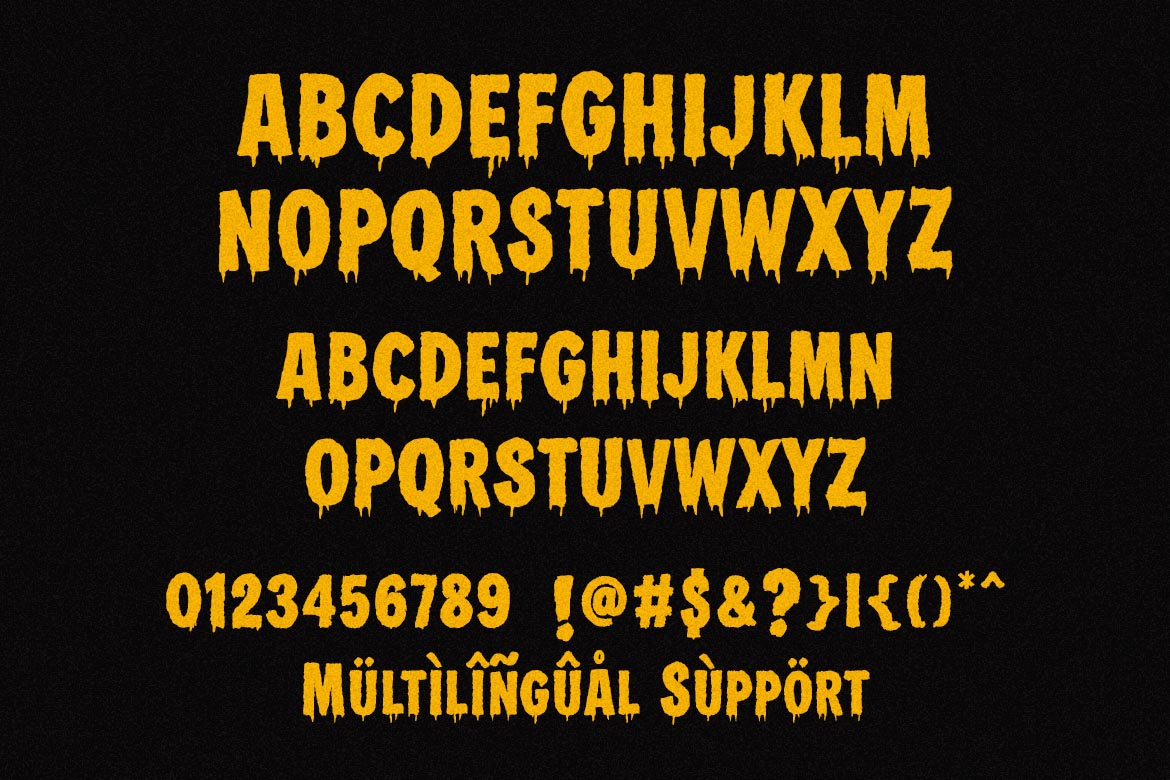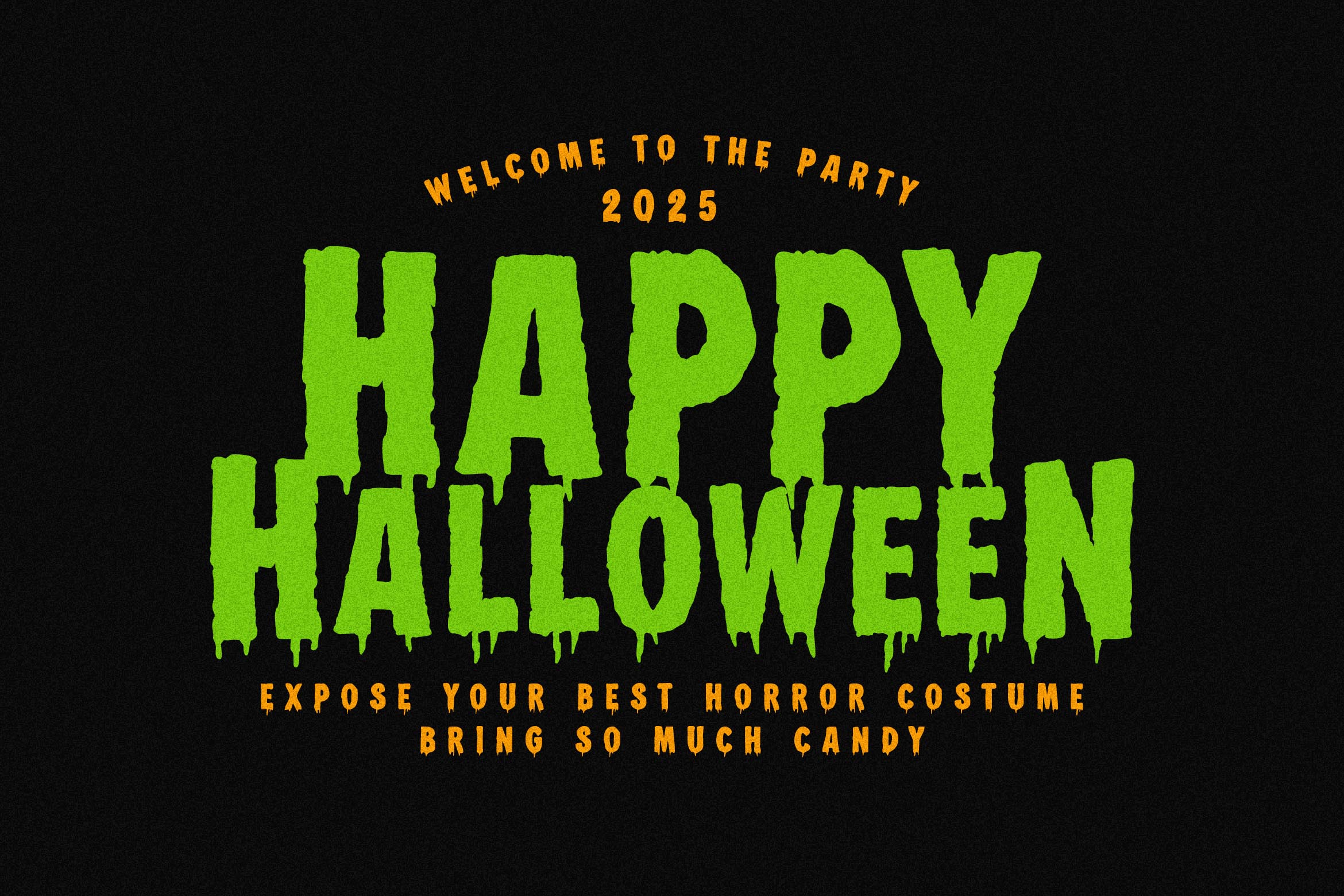
Hello Horror
Hello Horror – A Unique Dripping Font for Halloween Branding & Beyond
Say “boo” to boring fonts and scream hello to Hello Horror — a bold, unique dripping display font designed to inject frightful fun into your designs. Inspired by classic horror films, slime, and spooky vibes, this font is made for creative professionals who want to make a loud, eerie statement.
Only available at Primefont.com, Hello Horror is perfect for crafting chilling logos, creepy food packaging, horror product promotions, and terrifying brand campaigns. The jagged, melty edges bring a gritty and haunting texture to every letter, while still maintaining strong readability — even at larger sizes.
Perfect for:
• Halloween branding and haunted house signage
• Spooky logo design for food, snacks, or games
• Themed product packaging or merchandise
• Event posters, digital campaigns, or corporate seasonal promos
• Any creative project that dares to embrace the dark side
Whether you're working on a horror-themed movie poster, a Halloween product launch, or a playful-yet-scary social media post, Hello Horror gives your typography a bloodcurdling edge.